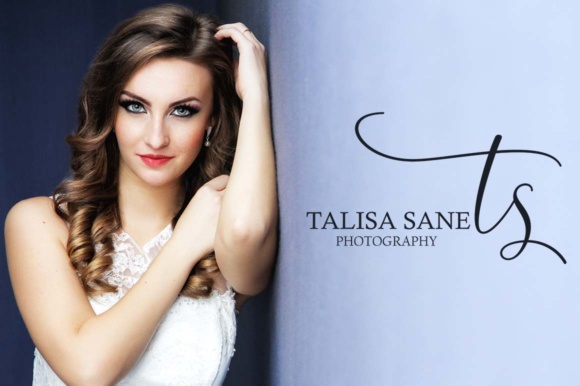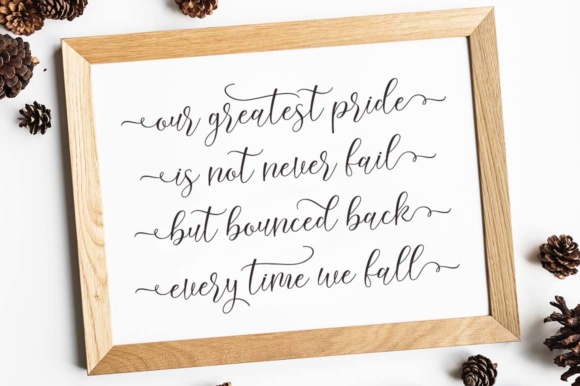
Lattoria Script Font
db-ku.com - Script & Handwritten -- The Lattoria is a fresh & modern script with a handmade calligraphy style. It has decorative characters and a dancing baseline! It’s perfect for adding an elegant feel to your designs.